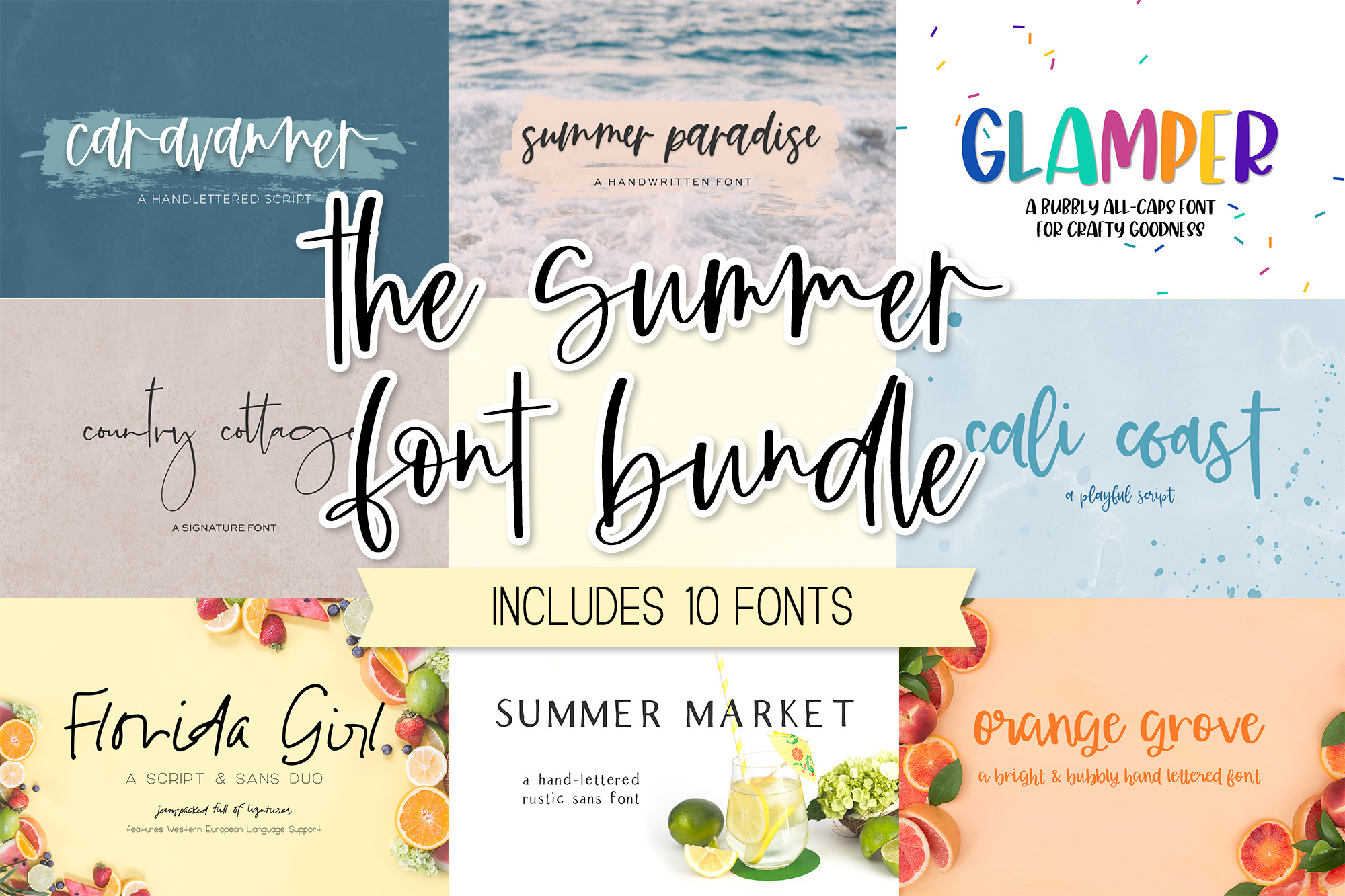
Summer Font Bundle
Introducing the Summer Font Bundle!
Enjoy 10 beautiful fonts perfect for all types of summer-themed projects. All handlettered, these fonts will be perfect for greeting cards & designs, logos & branding, website elements, quote graphics, and crafting projects on your Cricut or Silhouette machine! This bundle includes:
- Summer Paradise Script
- Caravanner Script
- Glamper Sans
- Country Cottage Script
- Beach Day Script
- Breakwater Sans
- Florida Girl Script
- Orange Grove Script
- Cali Coast Script
- Summer Market Sans